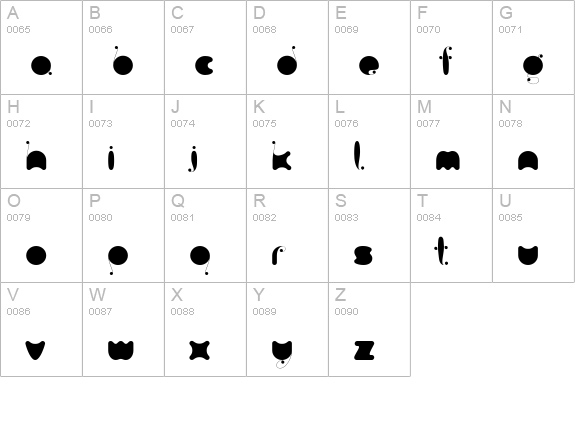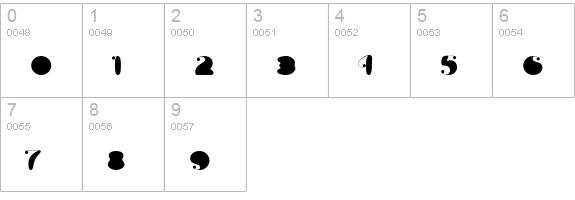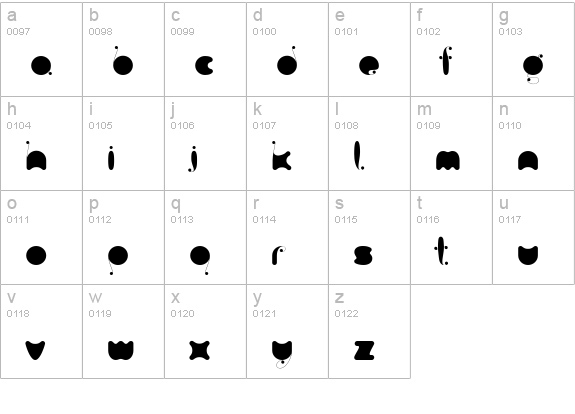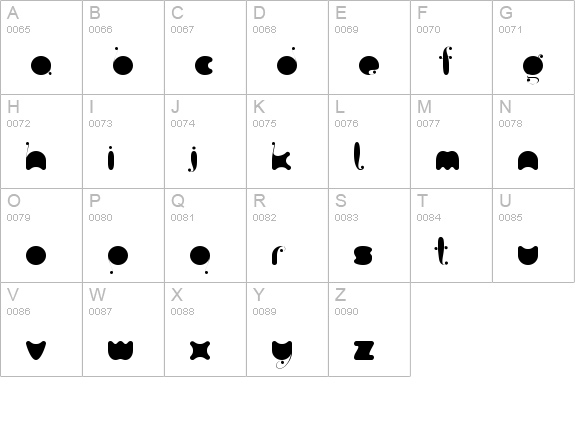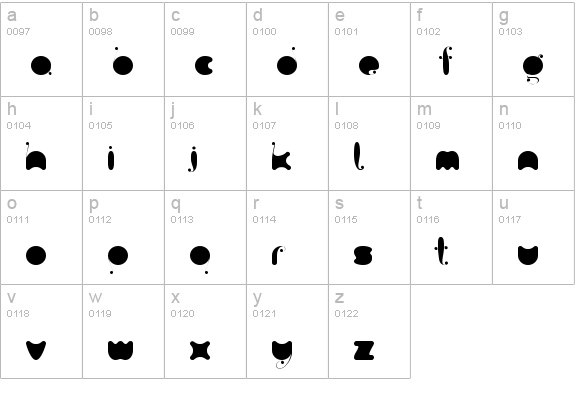
FatC Font Details
FatC font is a bold and eye-catching typeface that will make your designs stand out. With its thick strokes and rounded edges, this font exudes a sense of modernity and creativity. Perfect for headlines, posters, and branding projects, FatC font commands attention and adds a touch of playfulness to any design. Best of all, FatC font is completely free to download at FontsMarket.com. Simply head over to the website to access this versatile and striking typeface for your next project. Let your creativity shine with FatC font and make a bold statement with your designs.